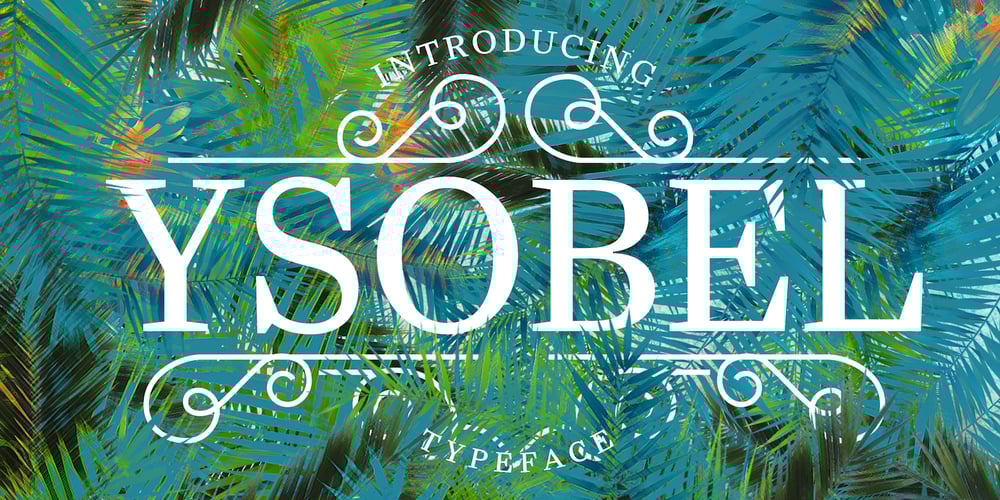
Ysobel Font Family was designed by Robin Nicholas, Alice Savoie and published by Monotype. Ysobel contains 20 styles and family package options. The Ysobel™ typeface family is not only elegant; it is also exceptionally legible and space economical. A collaborative design effort between Robin Nicholas, as lead designer and project director, Delve Withrington and Alice Savoie of Monotype Imaging, the project had the primary design goal of creating a typeface family for setting text in newspapers and periodicals. The result, however, is also ideal for any application that requires quick and easy assimilation of text. According to Nicholas, “The idea for the design started when I was asked to develop a custom version of Century Schoolbook. I wanted to give the design a more contemporary feel, although the client ultimately decided to keep their typeface closer to the original. The project nevertheless gave me ideas for a new design. Since designing Nimrod, some 30 years ago, I had wanted to make a more modern typeface family for newspapers and magazines – this seemed the ideal candidate.” Ysobel (pronounced “Isabel”) has the soft, inviting letter shapes of Century Schoolbook but contrasts these with more incised serifs and terminals. Its capitals are also narrower than those of Century Schoolbook, and care was taken to ensure that they harmonize perfectly with the lowercase. Ysobel’s x-height is full-bodied without disrupting lowercase proportions. In addition, curved terminals, such as those in the “C,” “c” and “e,” were drawn more open as an aid to legibility and readability in text copy. Weight stress is near vertical, and hairlines are robust to ensure character fidelity in small point sizes. Development began with the text version of the family, which has four weights, each with an italic companion. All weights feature lining and old style numerals, fractions, superiors and extended Latin language coverage. Small caps are also available in the Roman Regular design. Ysobel Display is a completely redrawn version of the typeface; it is narrower, and has a slightly smaller x-height, thinner hairlines and subtle design changes to improve its appearance when set at large sizes. The Display Italic received particular attention to make it ideal for setting headlines, subheads and short blocks of copy. Changes include a slightly greater italic angle and more cursive treatment of some letter shapes. Alternative styles of capital “J” and “Q,” to provide variation, are available in all weights.